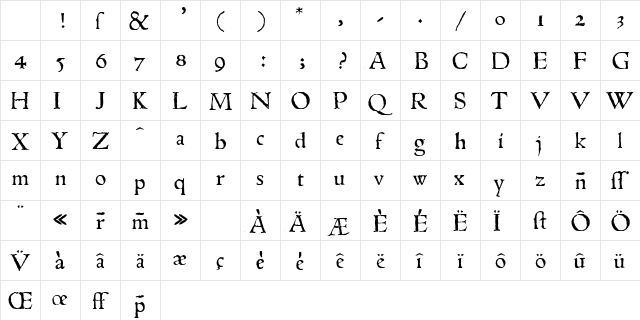
1543HumaneJenson Normal
Design Context for 1543HumaneJenson
1543HumaneJenson is a composed and adaptable typeface that performs quietly and consistently across a wide range of design contexts.
Pro Tip: Use 1543HumaneJenson in both headline and body roles to test its range before committing to a single application.